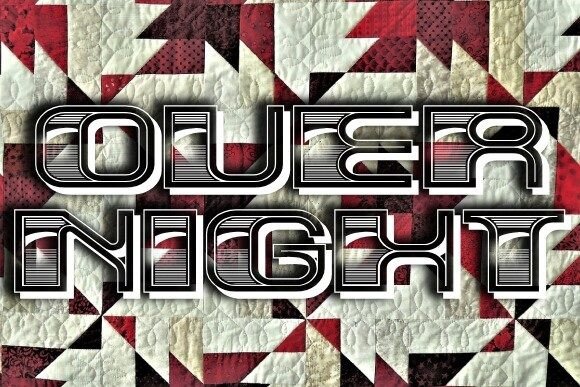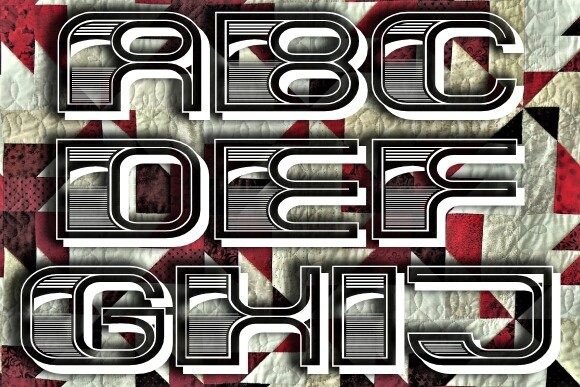
Introduction to Level Editor Font
Level Editor is an awesome 3D typeface that will look awesome on any of Your designs.
This font will suit best on posters, flyers and t-shirts .
Level Editor Font offers exceptional quality and versatility, making it a valuable addition to your design toolkit. Whether you’re creating for personal projects or commercial use, Level Editor Font delivers professional results.